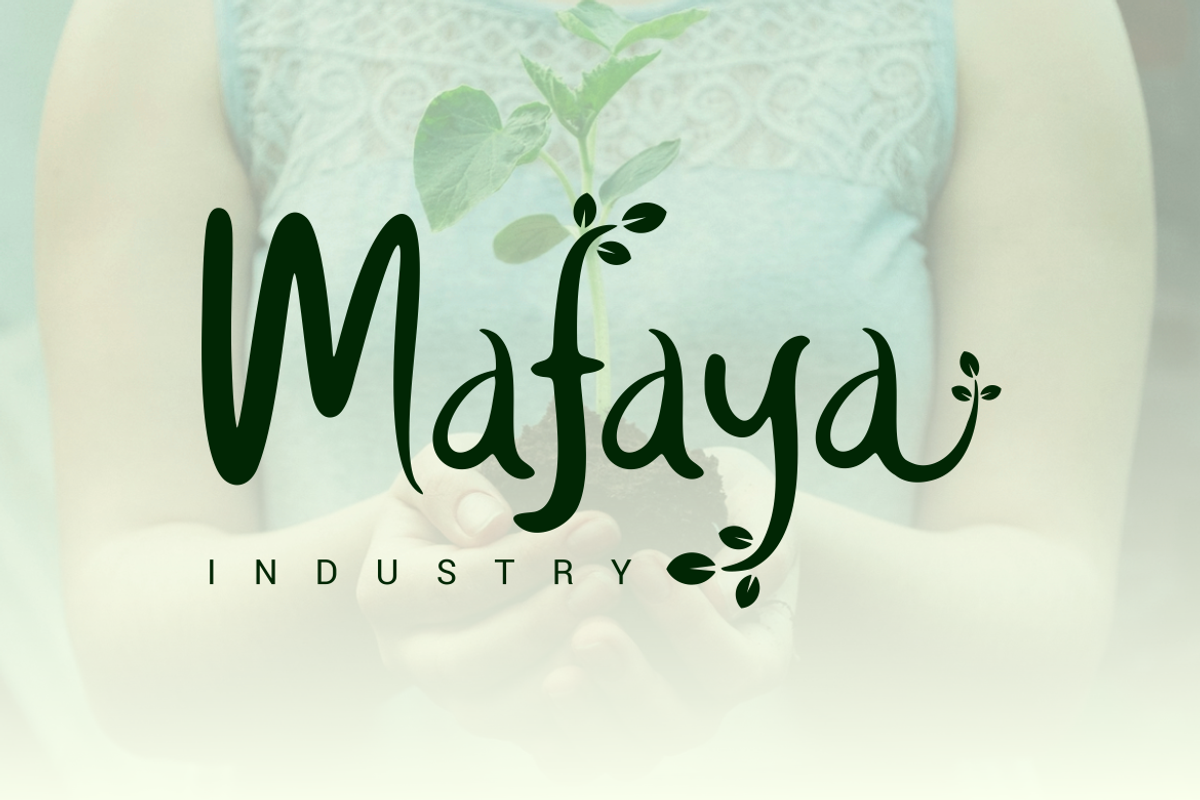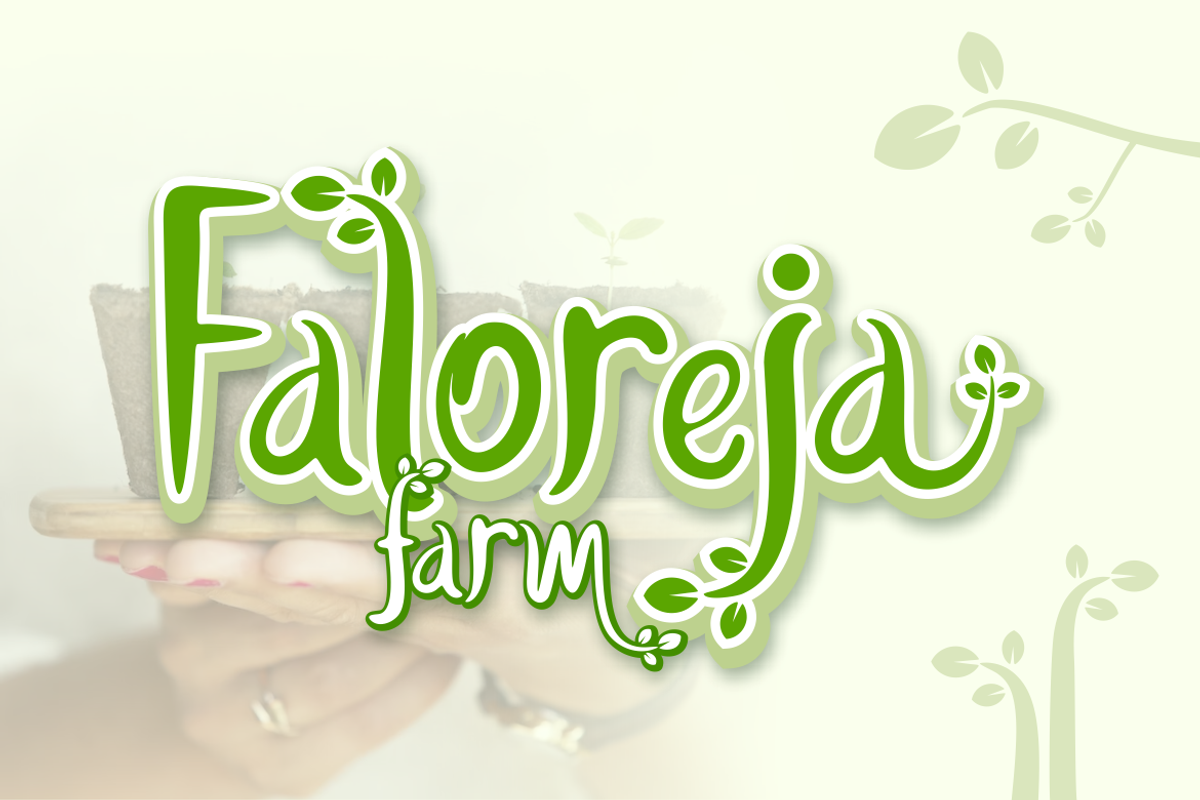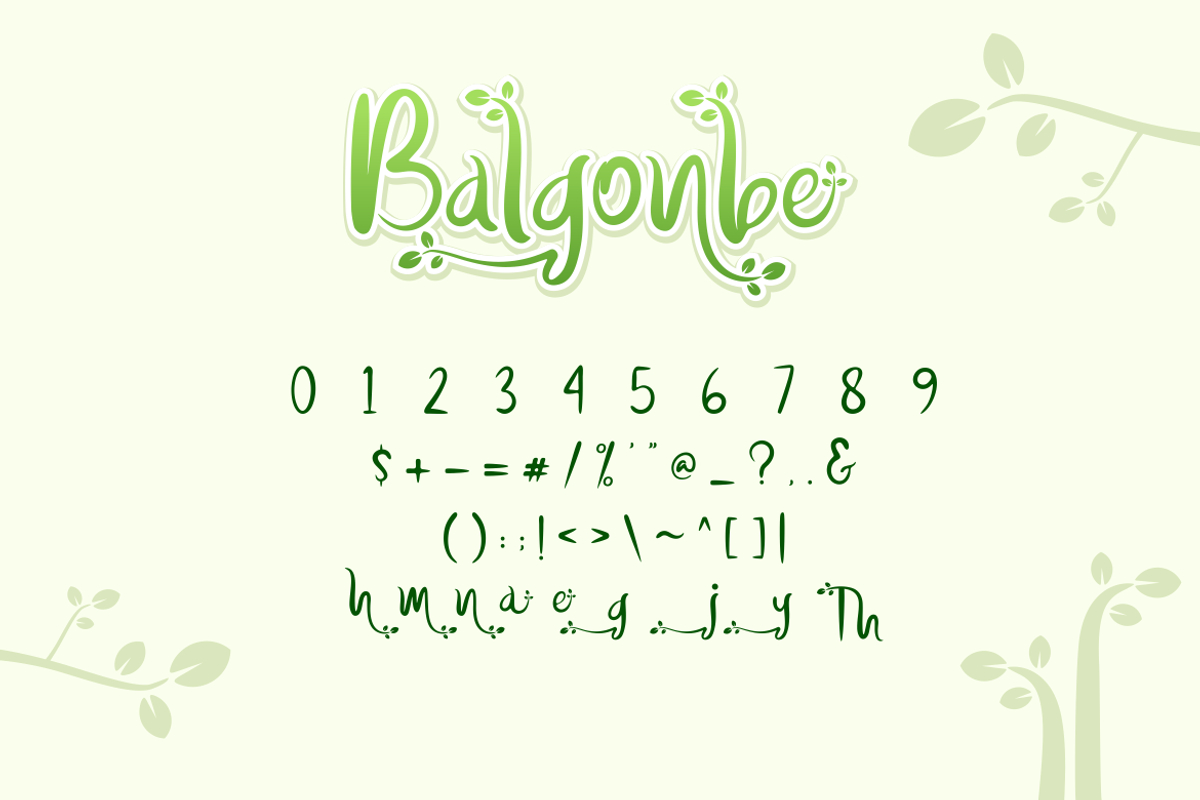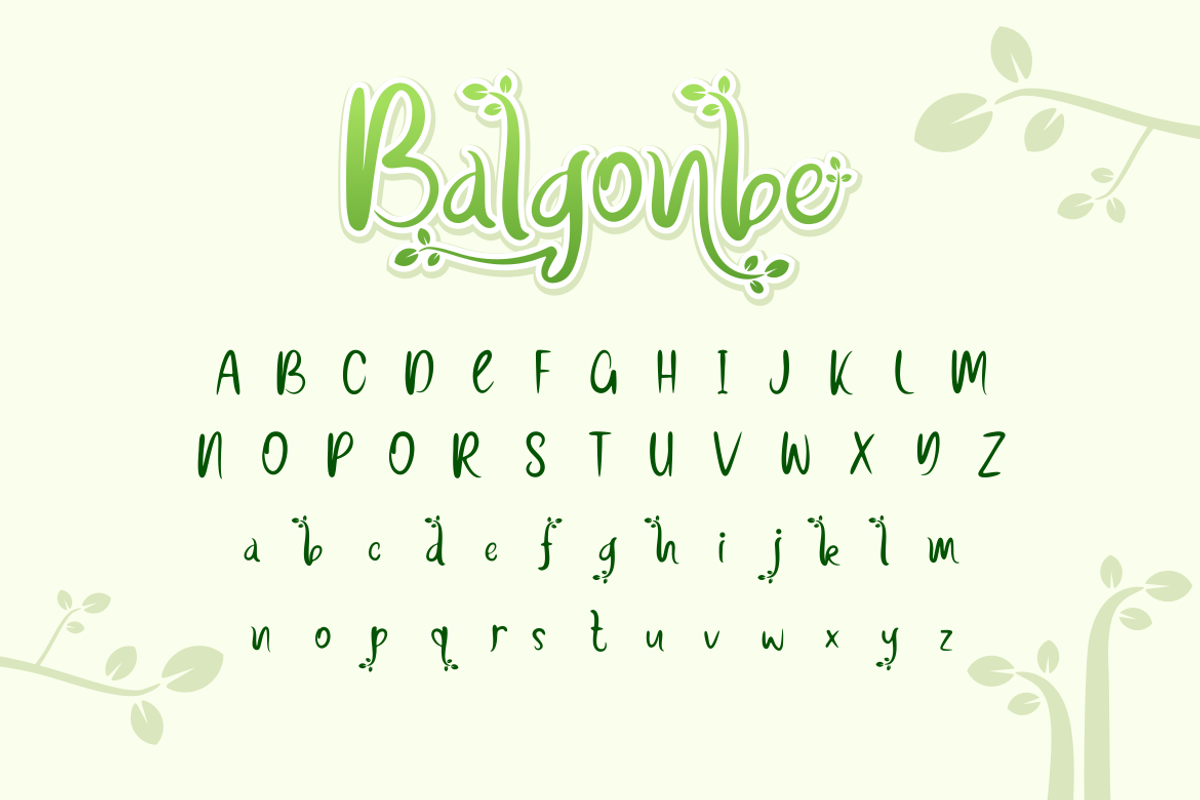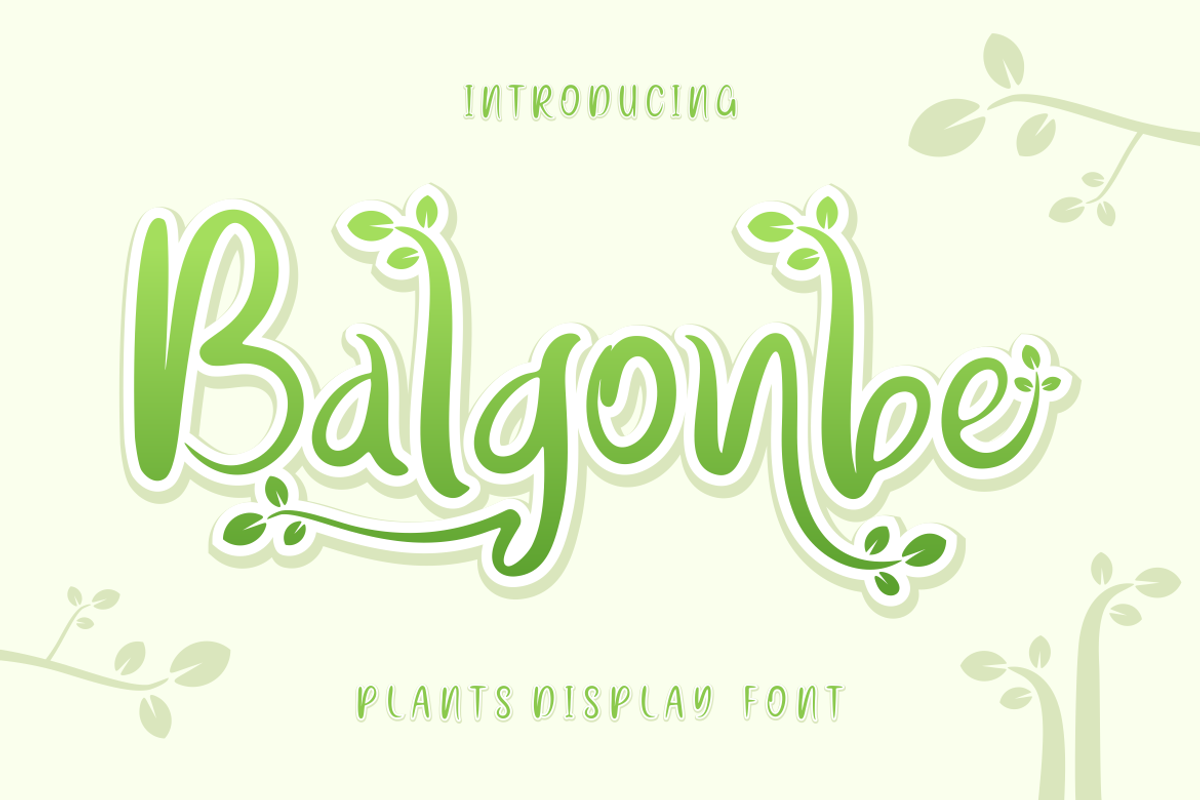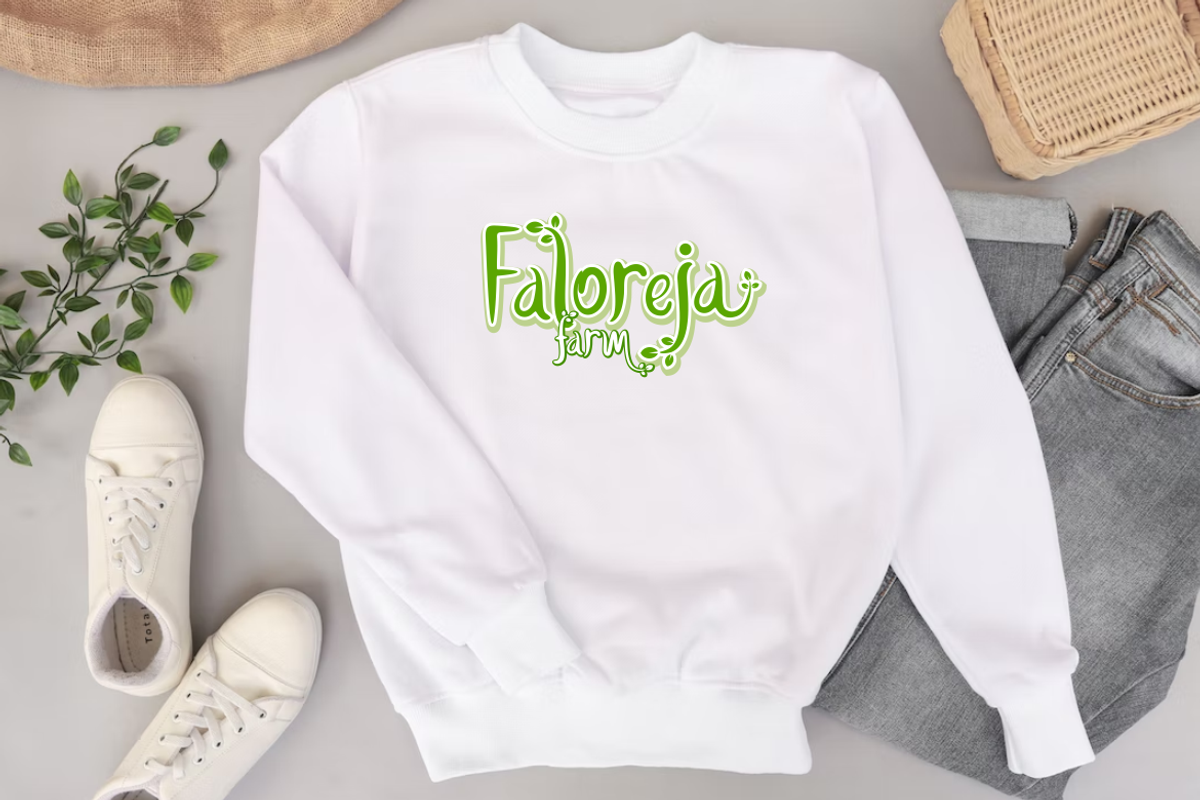
Balgonbe Font
Presenting our new product Balgonbe Font - Decorative Font is a bold and authentic display font. This font is perfect for any branding project such as logos, t-shirt printing, creative products, and more. extraordinary in a variety of contexts.